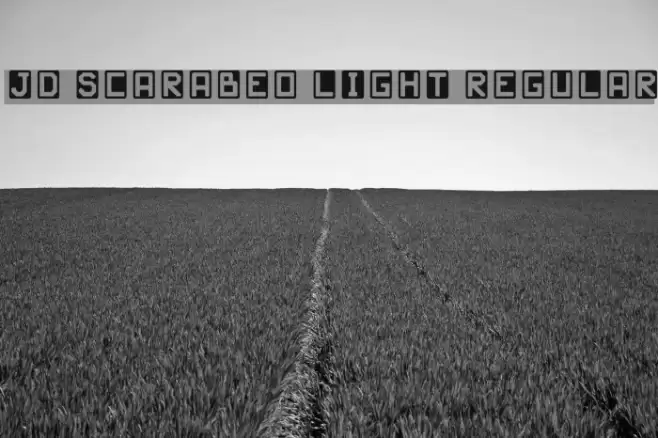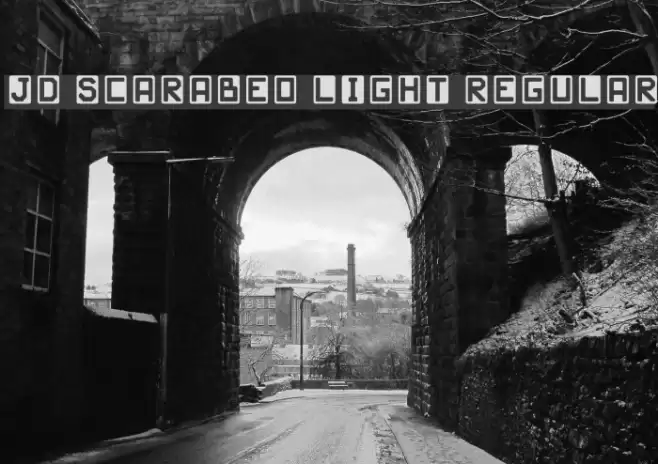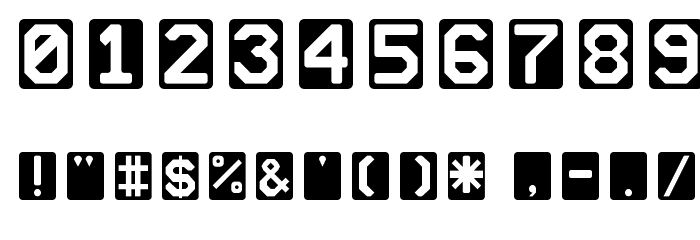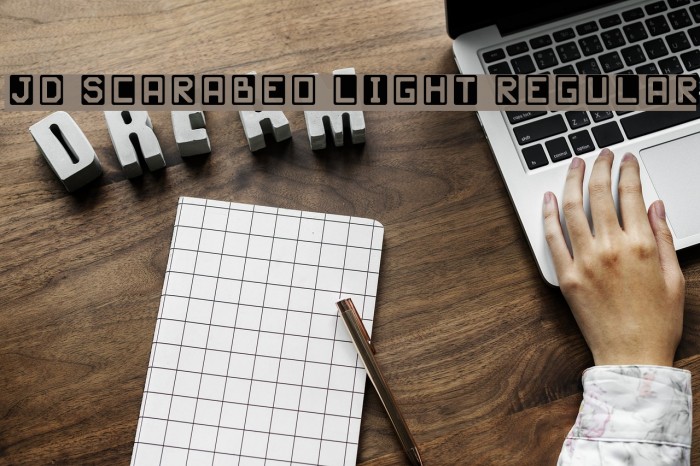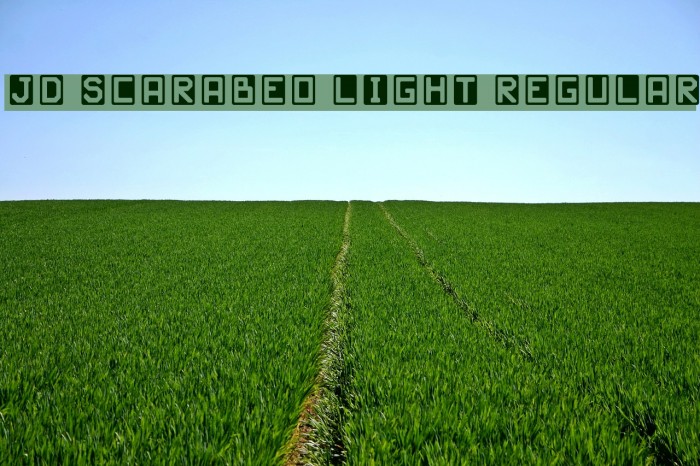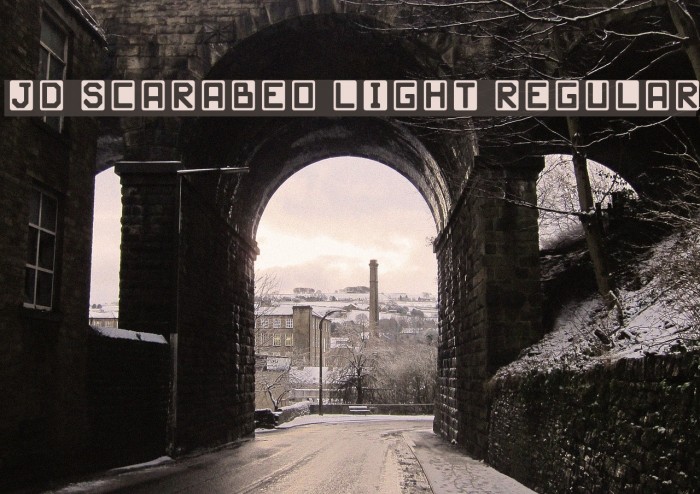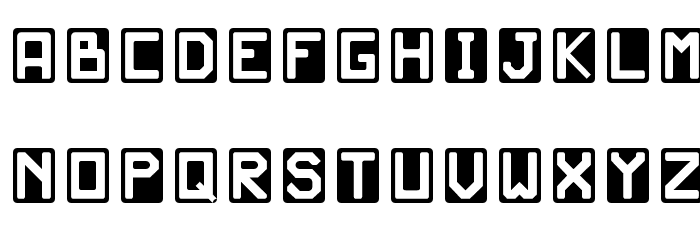
JD Scarabeo Light Regular Font
JD Scarabeo Light Regular Description
This font features a bold, geometric design with a distinct blocky appearance. Each character is enclosed within a square, creating a unique and modern aesthetic. The letters and numbers are crafted with sharp angles and clean lines, giving the font a futuristic feel. The use of negative space within the characters adds to its visual interest and readability. The font is highly stylized, making it suitable for creative and impactful designs. It stands out with its strong presence and is ideal for making bold statements in various design projects.
A bold, geometric font with blocky, enclosed characters and a modern aesthetic.
- Proposed Projects: Ideal for posters, logos, branding, and any design requiring a strong, modern impact.